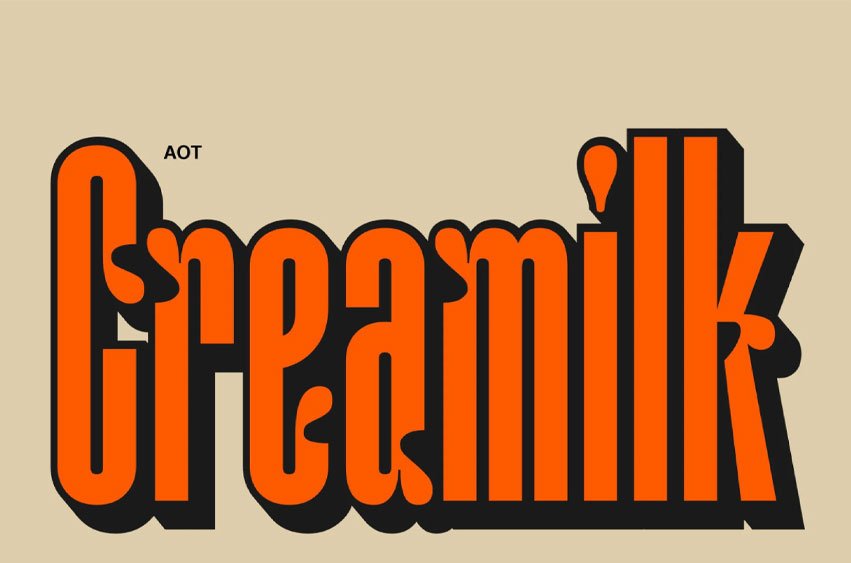
Creamilk Font is a condensed display font with a serious attitude. It combines clean lines with a playful spirit, making it perfect for designs that want to stand out with confidence and style.
Featuring 8 distinctive styles, including Regular, Rounded, Slant, and Extrude, this typeface gives you full creative control. Whether you are building bold headlines, layered typography, or expressive visual branding, AOT Creamilk adapts effortlessly across different moods and concepts.
It brings just the right balance of structure and personality. Strong enough to grab attention and refined enough to leave a lasting impression. We had so much fun creating this font and felt incredibly excited throughout the process, and we hope you feel that same spark when you use it.
- Features: Uppercase, Lowercase, Numeral, Punctuation, Multilingual, Alternates & Ligatures.